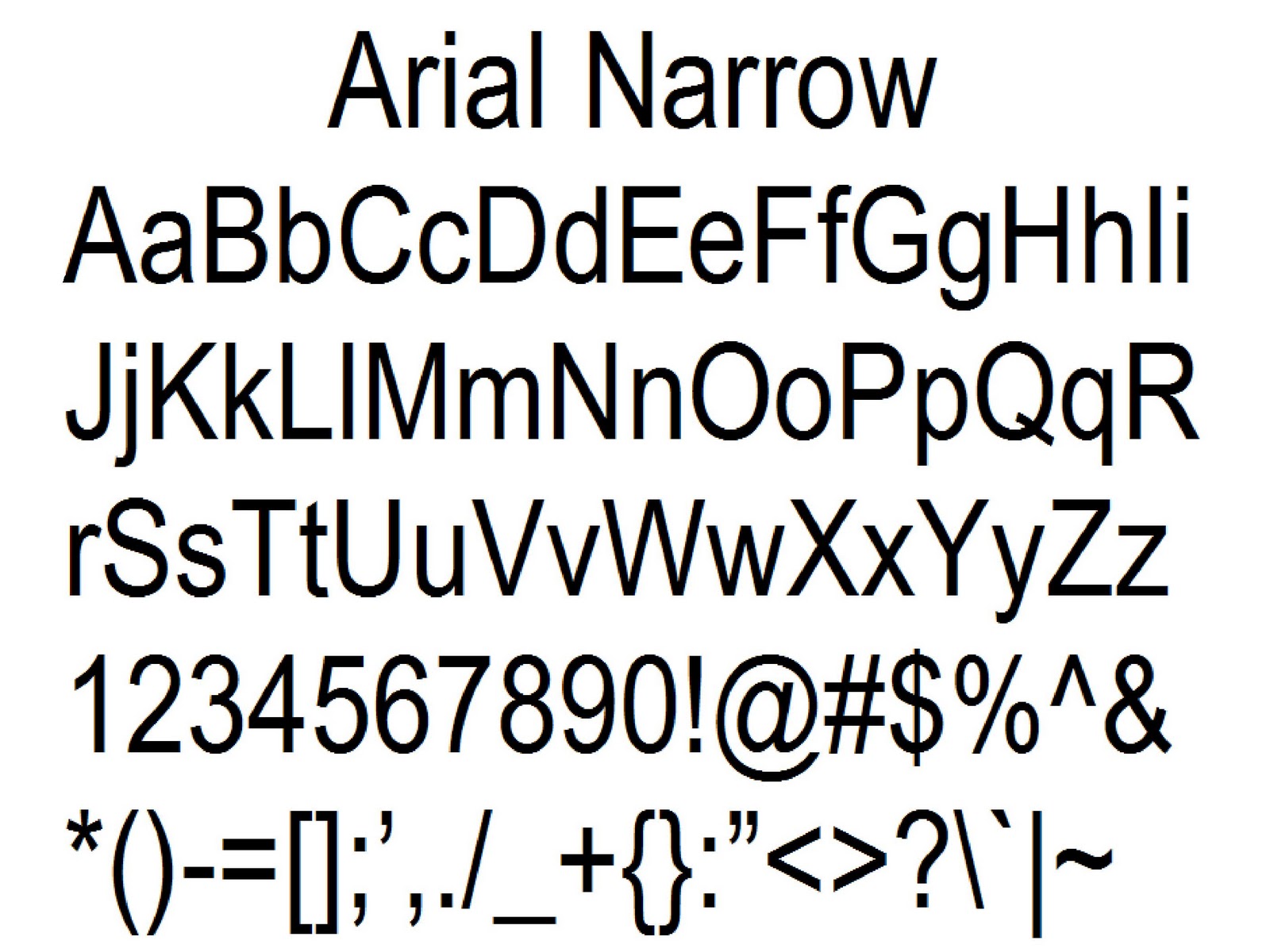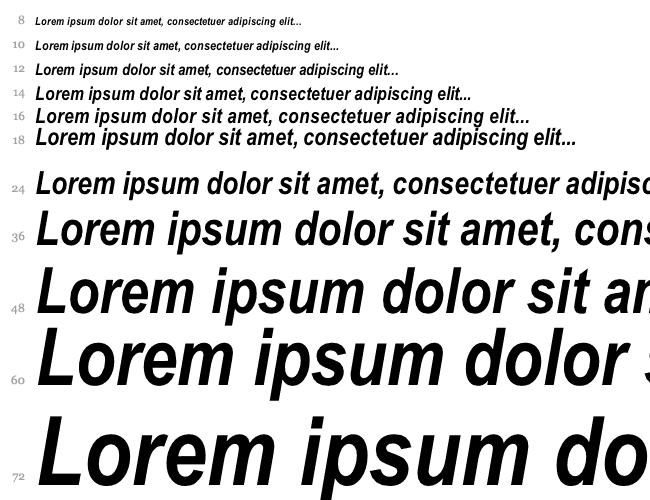
Arial Narrow Bold Google Fonts
Arial Narrow Bold Google Fonts - Web arimo was designed by steve matteson as an innovative, refreshing sans serif design that is metrically compatible with arial™. It was originally designed for highlights and headlines. Web making the web more beautiful, fast, and open through great typography
It was originally designed for highlights and headlines. Web arimo was designed by steve matteson as an innovative, refreshing sans serif design that is metrically compatible with arial™. Web making the web more beautiful, fast, and open through great typography
Arial Narrow Bold Regular truetype font
Web arimo was designed by steve matteson as an innovative, refreshing sans serif design that is metrically compatible with arial™. It was originally designed for highlights and headlines. Web making the web more beautiful, fast, and open through great typography
Web arimo was designed by steve matteson as an innovative, refreshing sans serif design that is metrically compatible with arial™. Web making the web more beautiful, fast, and open through great typography It was originally designed for highlights and headlines.
Arial Narrow Bold Font
Web arimo was designed by steve matteson as an innovative, refreshing sans serif design that is metrically compatible with arial™. Web making the web more beautiful, fast, and open through great typography It was originally designed for highlights and headlines.
It was originally designed for highlights and headlines. Web arimo was designed by steve matteson as an innovative, refreshing sans serif design that is metrically compatible with arial™. Web making the web more beautiful, fast, and open through great typography
Arial Narrow OS Bold Fonts
Web making the web more beautiful, fast, and open through great typography It was originally designed for highlights and headlines. Web arimo was designed by steve matteson as an innovative, refreshing sans serif design that is metrically compatible with arial™.
Arial Narrow Bold Version 2.40 Font Sample Font
Web making the web more beautiful, fast, and open through great typography It was originally designed for highlights and headlines. Web arimo was designed by steve matteson as an innovative, refreshing sans serif design that is metrically compatible with arial™.
It was originally designed for highlights and headlines. Web making the web more beautiful, fast, and open through great typography Web arimo was designed by steve matteson as an innovative, refreshing sans serif design that is metrically compatible with arial™.
Arial Narrow Bold Italic Regular truetype font
Web making the web more beautiful, fast, and open through great typography It was originally designed for highlights and headlines. Web arimo was designed by steve matteson as an innovative, refreshing sans serif design that is metrically compatible with arial™.
Web Arimo Was Designed By Steve Matteson As An Innovative, Refreshing Sans Serif Design That Is Metrically Compatible With Arial™.
It was originally designed for highlights and headlines. Web making the web more beautiful, fast, and open through great typography